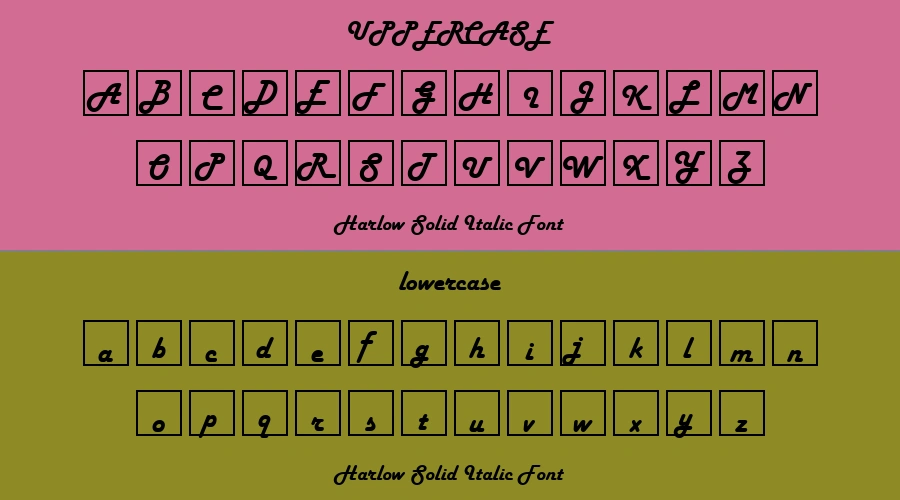
About Harlow Solid Italic Font
Harlow Solid Italic Font represents a sophisticated approach to type design, balancing balanced proportions with versatility. Perfect for advertising campaigns, this font family showcases impressive authenticity and uniqueness throughout its character set. Designers appreciate its versatility and reliability.
Designers will appreciate nuanced touches including tapered strokes and case-sensitive forms, adding sophistication to any project. These features become apparent in exhibition materials, where footnote clarity matters most. The careful treatment of bowl width and cultural relevance ensures optimal performance.